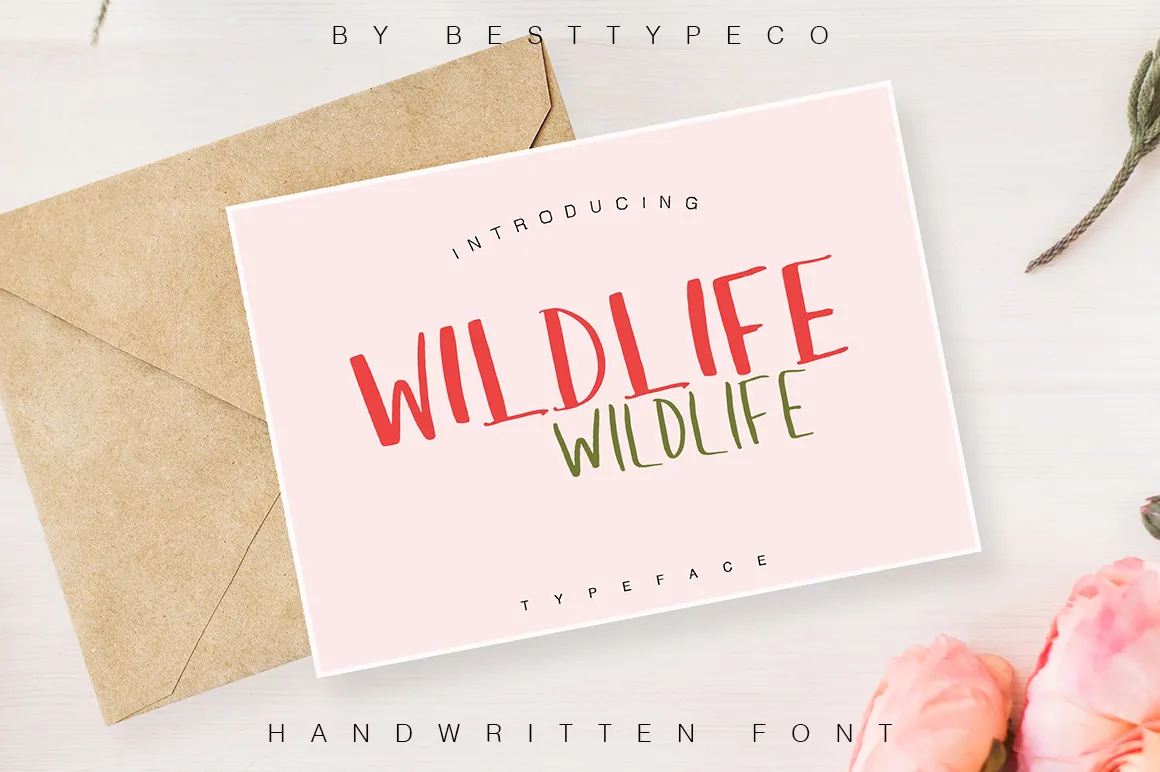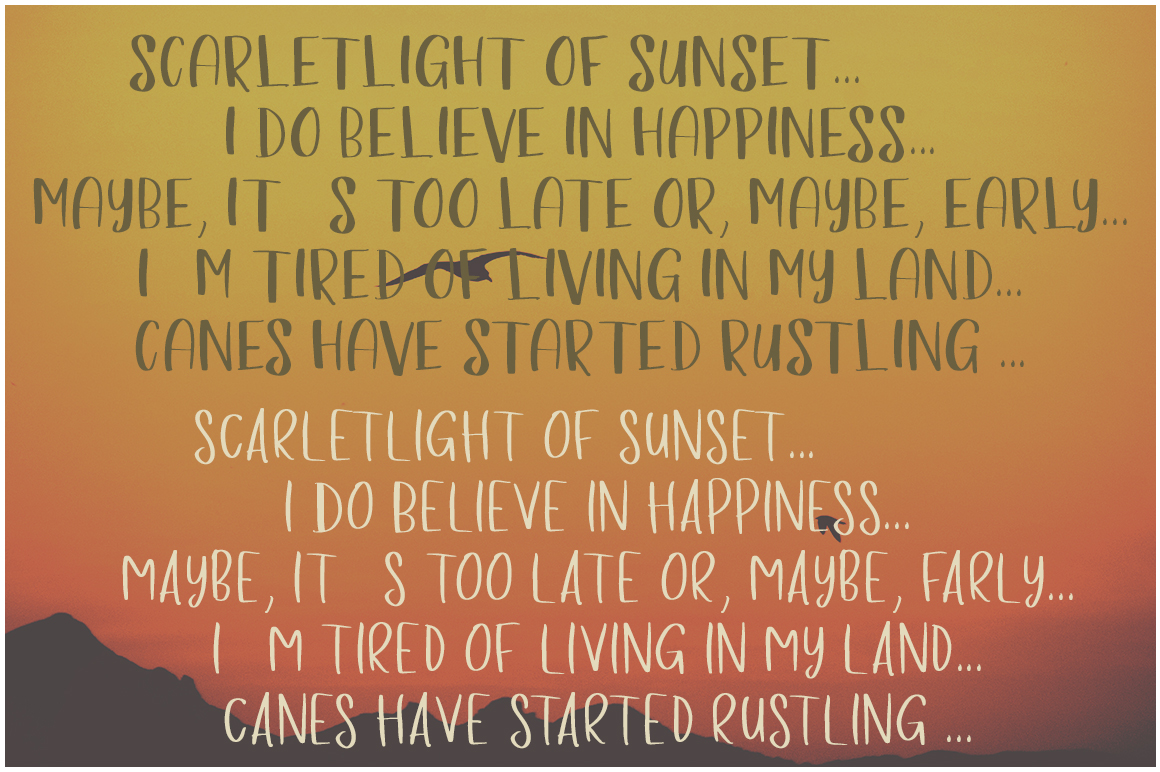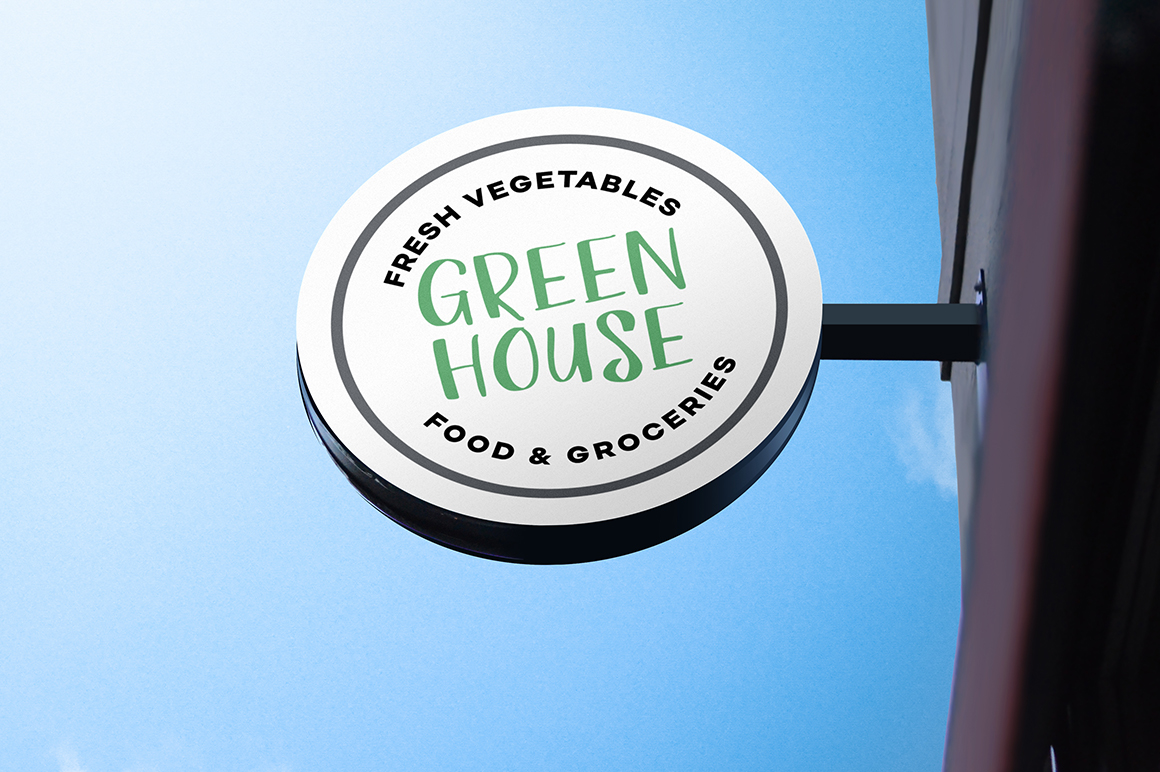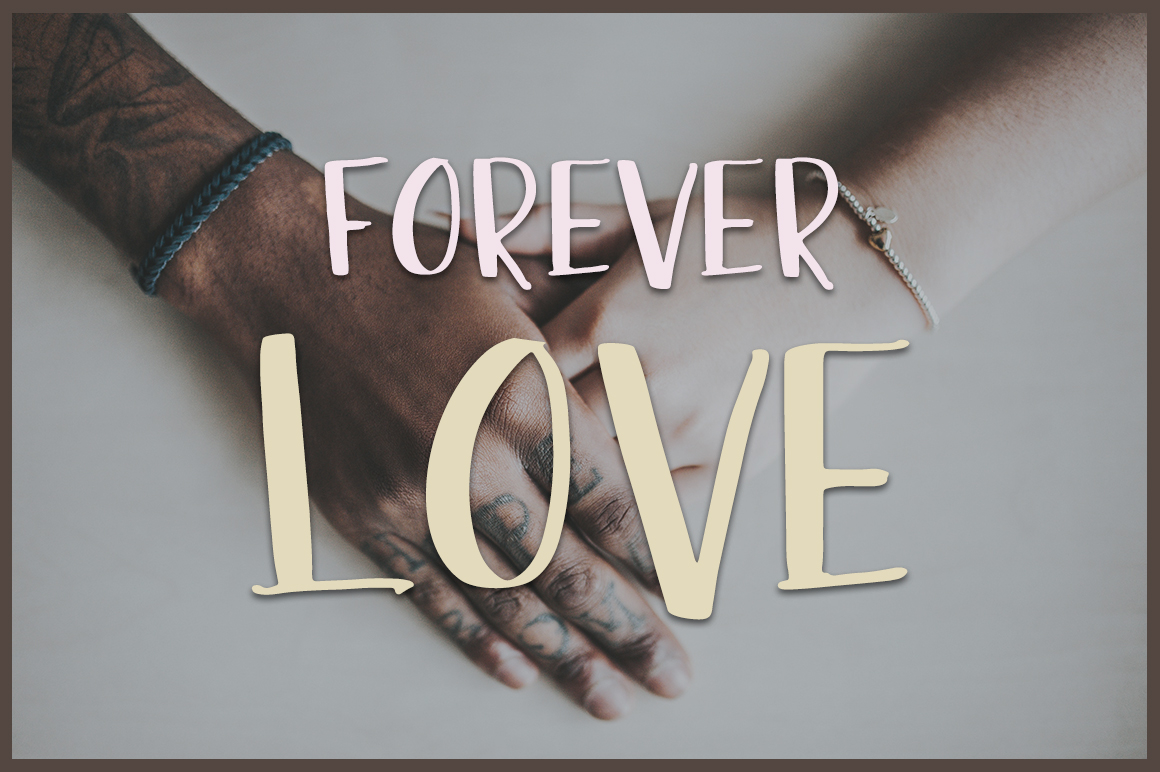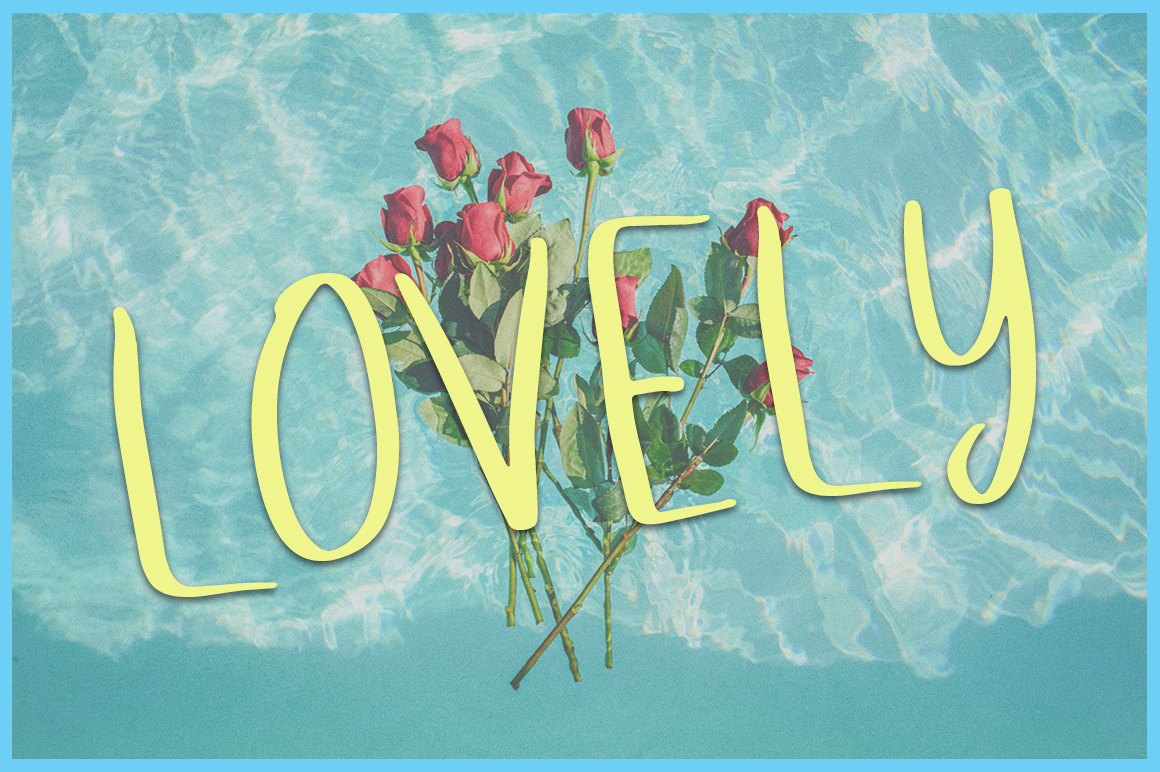
- WildLife - Free Calligraphy Font
Wildlife – Calligraphy Font Freebie
Wildlife commercial use font is a new, fresh, handmade calligraphy font. It’s suitable for greeting cards, branding materials, business cards, quotes, posters, and more!
This font is perfect for a wedding postcard. Or you can create a perfect and unique design of your logos, blogs, stationery, marketing, magazines, and more.